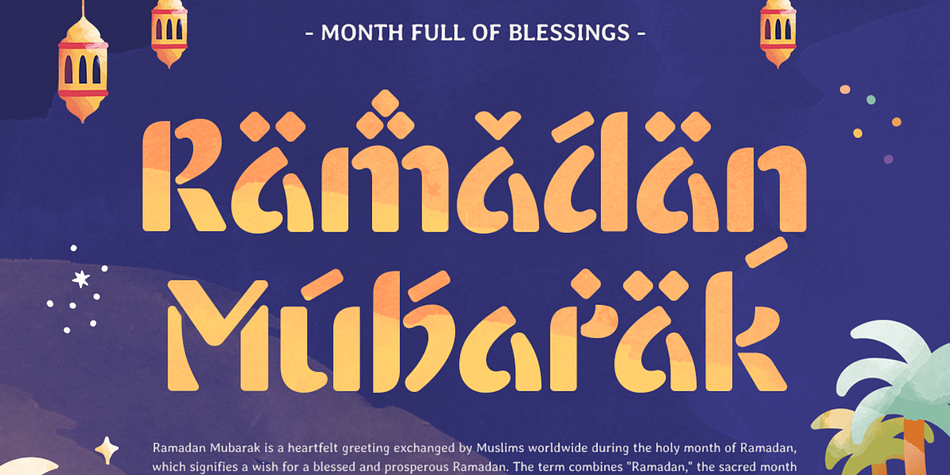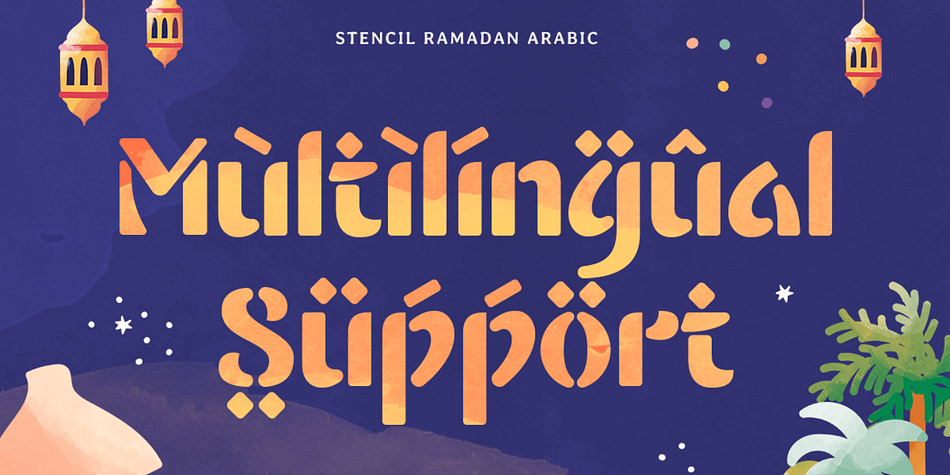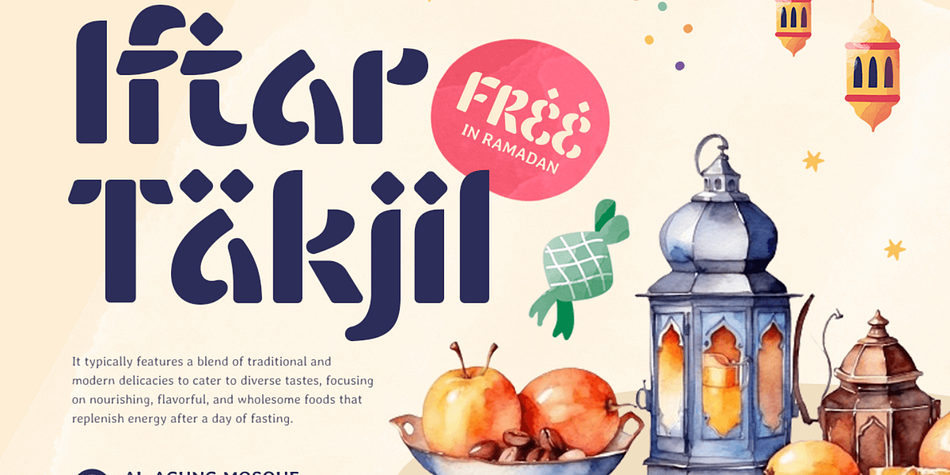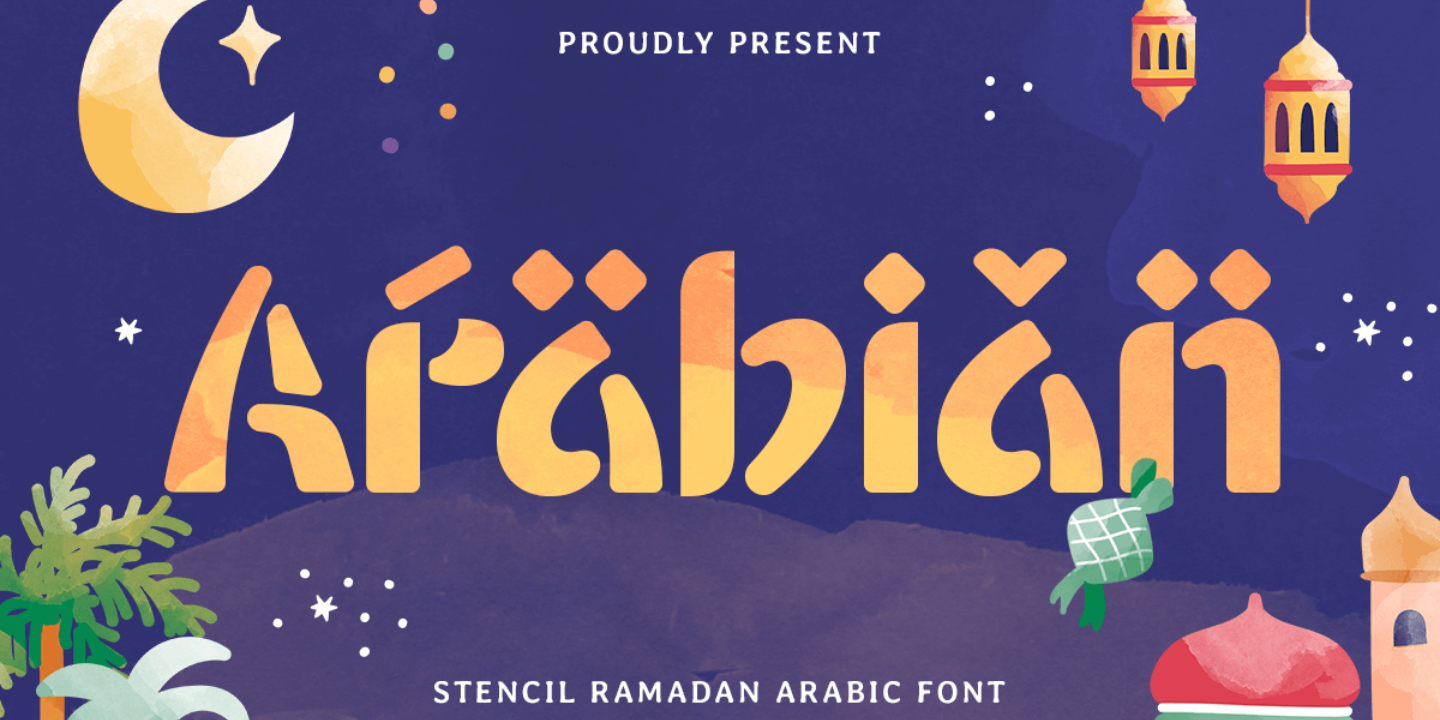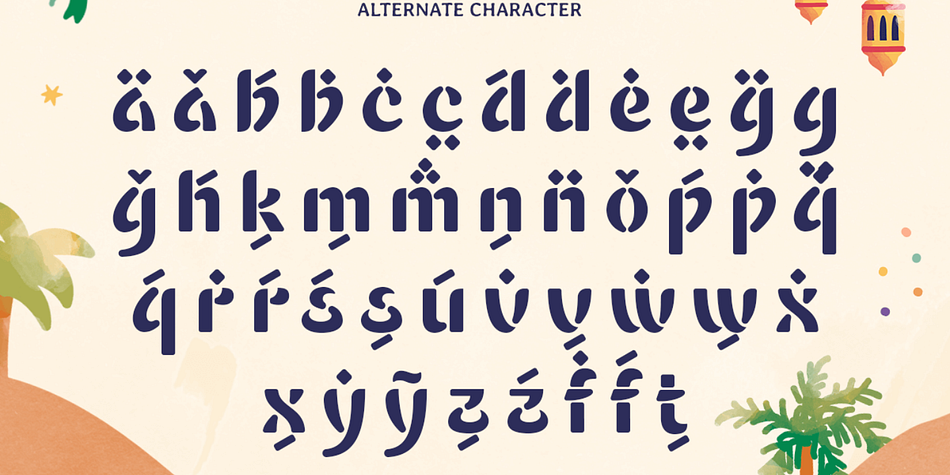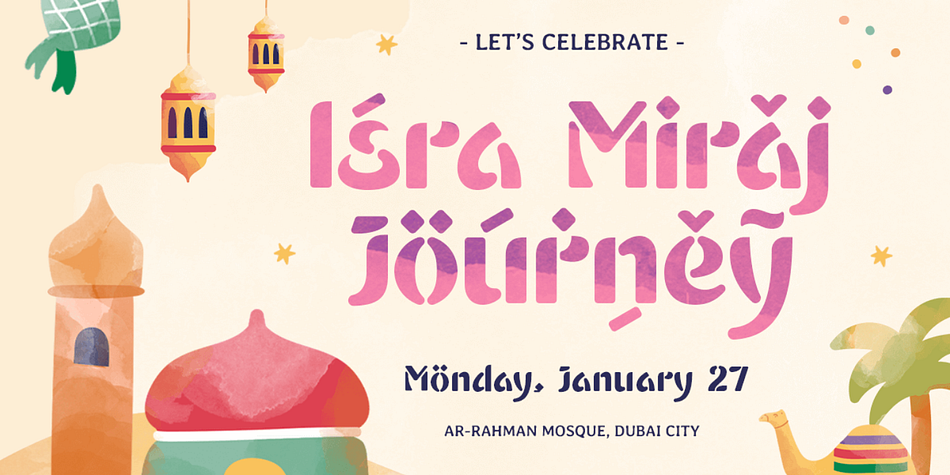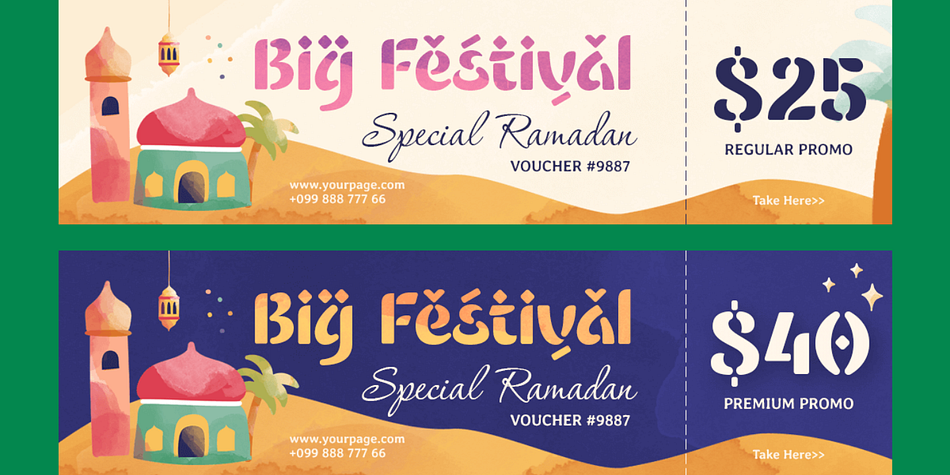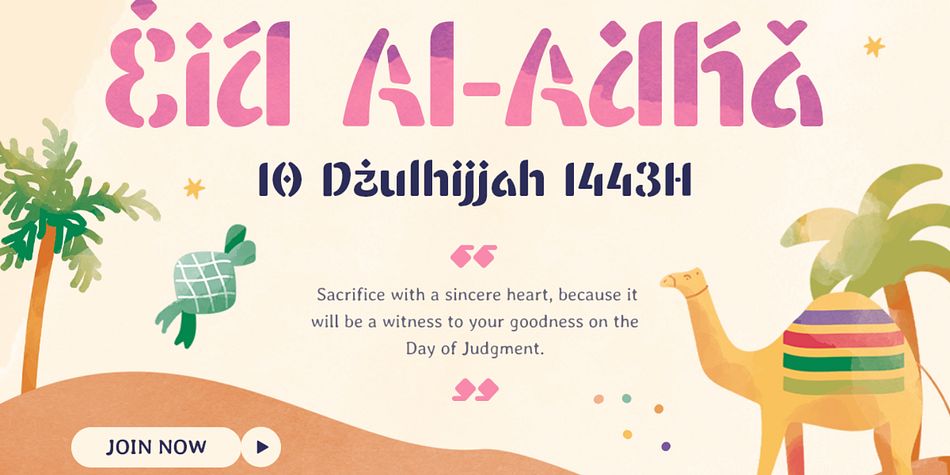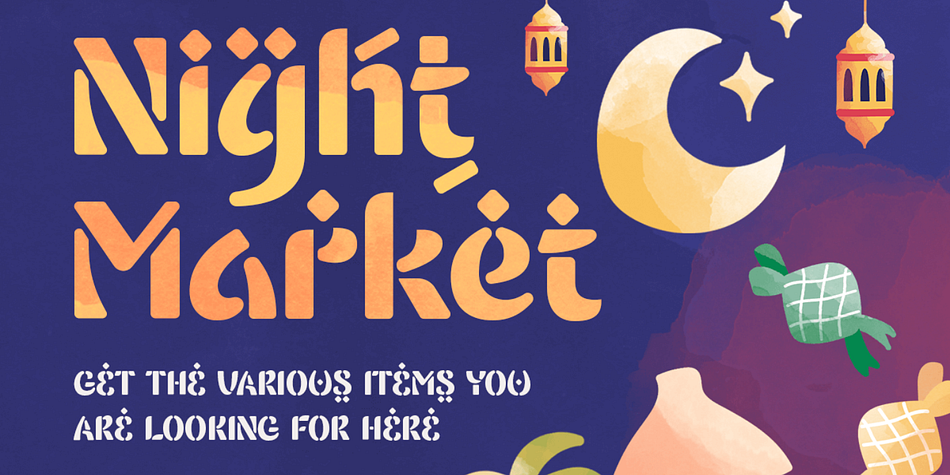
A Playful Twist on Arabic Typography
Arabian is a fun stencil Ramadan Arabic font that brings a joyful and vibrant energy to your designs. Its playful stencils and dynamic curves are perfect for celebrating the festive spirit of Ramadan.
Ideal for Bright and Creative Projects
From Ramadan-themed posters and invitations to branding and packaging, Arabian adds a unique flair to your work. Its fun and approachable style ensures your designs stand out while staying culturally meaningful.
Vibrancy Meets Tradition
Arabian combines the charm of traditional Arabic script with a modern, lighthearted approach. This font is perfect for designers seeking a balance of cultural richness and creative expression.
Arabian Fun Stencil Ramadan Arabic Font Features:
Alternates Characters Ready
Punctuation, Number, and Symbol
Uppercase and Lowercase
Opentype Features
Multilingual Characters available for:
Afrikaans, Albanian, Asu, Basque, Bemba, Bena, Breton, Chiga, Cornish, Dutch, English, Estonian, Filipino, Finnish, Friulian, Galician, German, Gusii, Indonesian, Irish, Italian, Kabuverdianu, Kalenjin, Kinyarwanda, Luo, Luxembourgish, Luyia, Machame, Makhuwa-Meetto, Makonde, Malagasy, Manx, Morisyen, North Ndebele, Nyankole, Oromo, Portuguese, Quechua, Romansh, Rombo, Rundi, Rwa, Samburu, Sango, Sangu, Scottish Gaelic, Sena, Shambala, Shona, Soga, Somali, Spanish, Swahili, Swedish, Swiss.